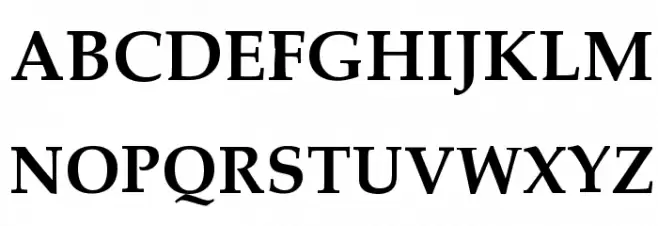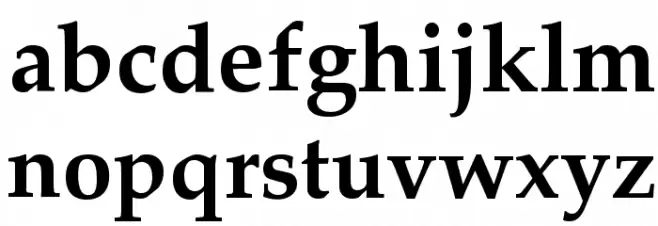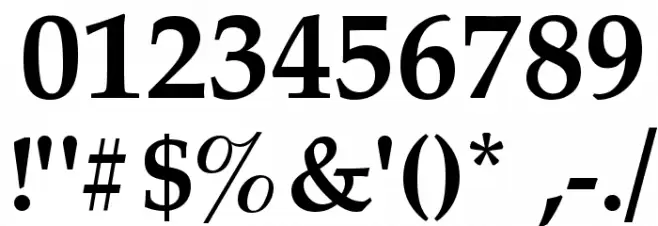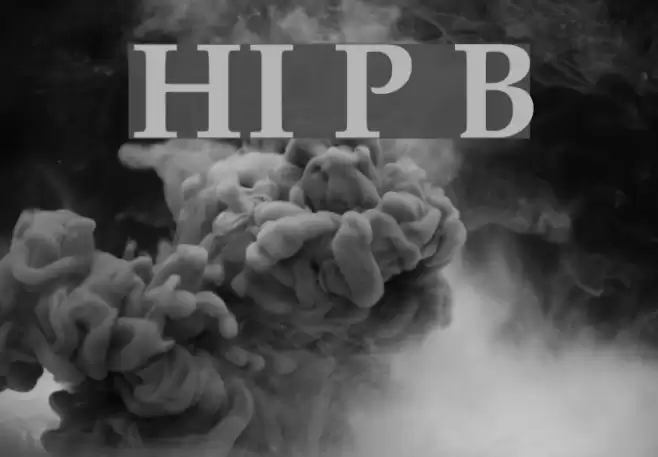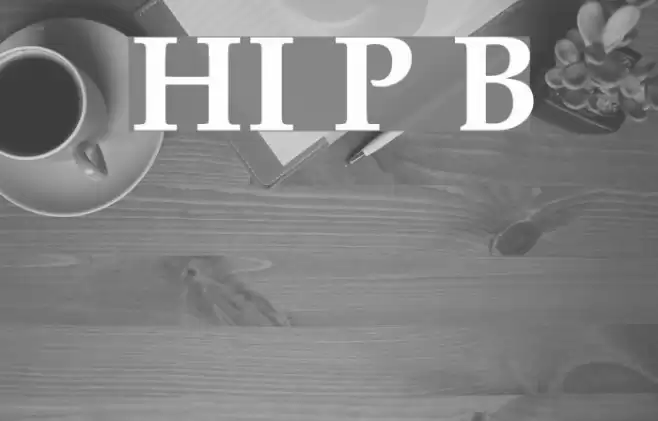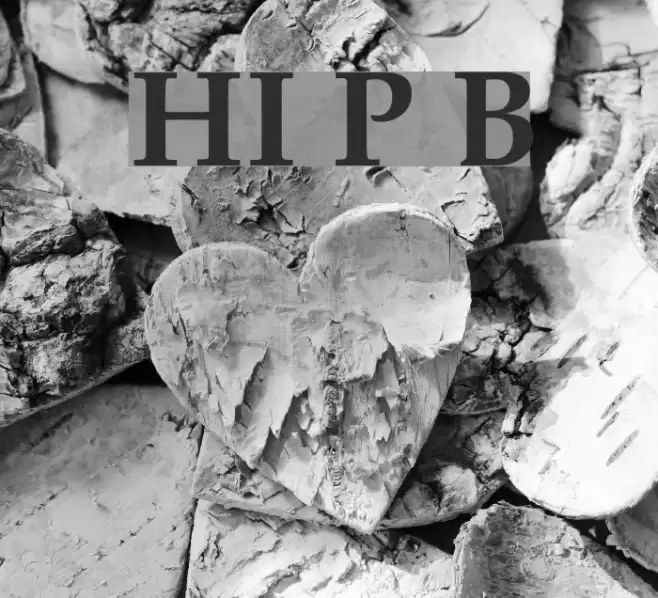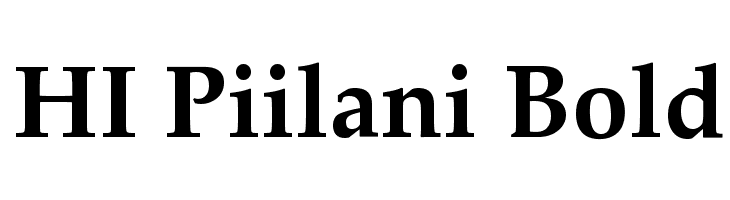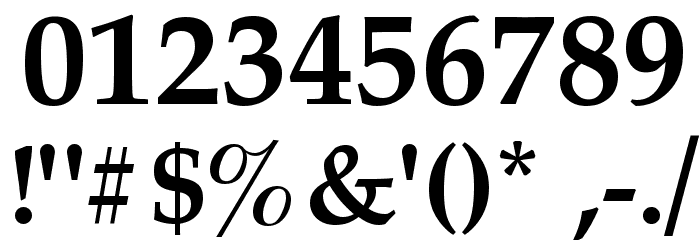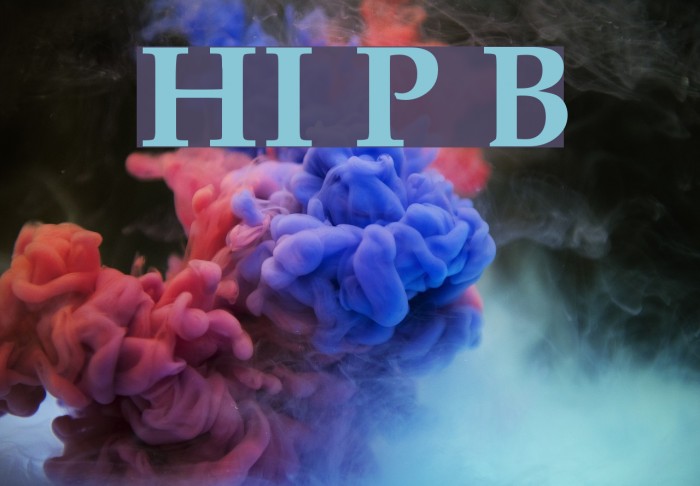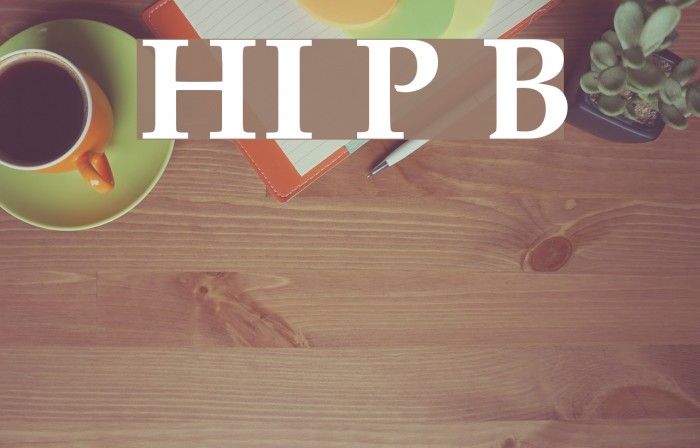
HI Piilani Bold
This font features a bold and commanding presence with its strong serif design. The characters are well-defined with a classic serif structure, giving it a traditional yet robust appearance. The uppercase letters exhibit a sense of authority, while the lowercase letters maintain readability with their balanced proportions. Numbers are clear and distinct, making them suitable for various applications. The special characters are crafted with precision, ensuring consistency across the typeface. Overall, this font combines elegance with strength, making it versatile for both formal and creative projects.
A bold serif font with a classic and authoritative style.
- Proposed Projects: Ideal for book covers, editorial headlines, branding materials, and formal invitations.
- Category: Serif
- Overall Style: Classic
- Use Case: Headlines, Logos, Editorial